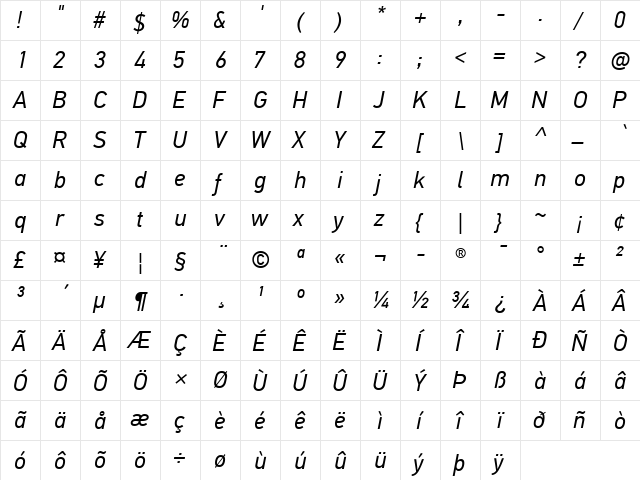
PF DinText Pro Italic
| Foundry | Parachute蠗orldwide |
| Designer | Panos Vassiliou |
Design Context for PF DinText Pro Typeface
PF DinText Pro is a composed and adaptable typeface that performs quietly and consistently across a wide range of design contexts. The slanted form adds forward momentum and visual energy.